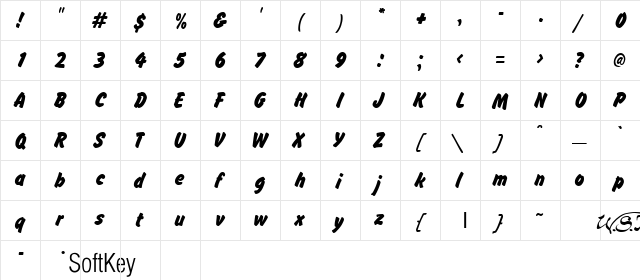
Spray Hand Regular
Design Context for Spray Hand Typeface
Spray Hand flows with the natural rhythm of handwritten lettering, making it ideal for designs that call for warmth and personal expression.
Font Pairing: Combine Spray Hand with a simple geometric sans for maximum contrast — the tension between flowing curves and clean structure is a classic typographic pairing.
Pro Tip: Use Spray Hand for short runs of text — names, titles, or taglines. Extended body copy in script faces tires the eye quickly.